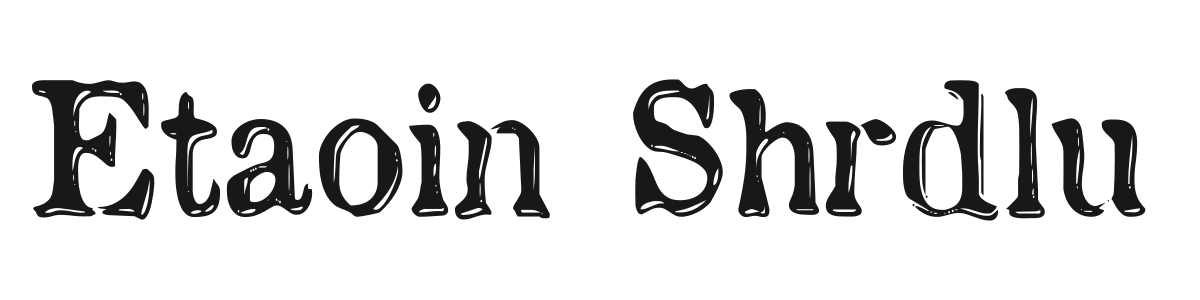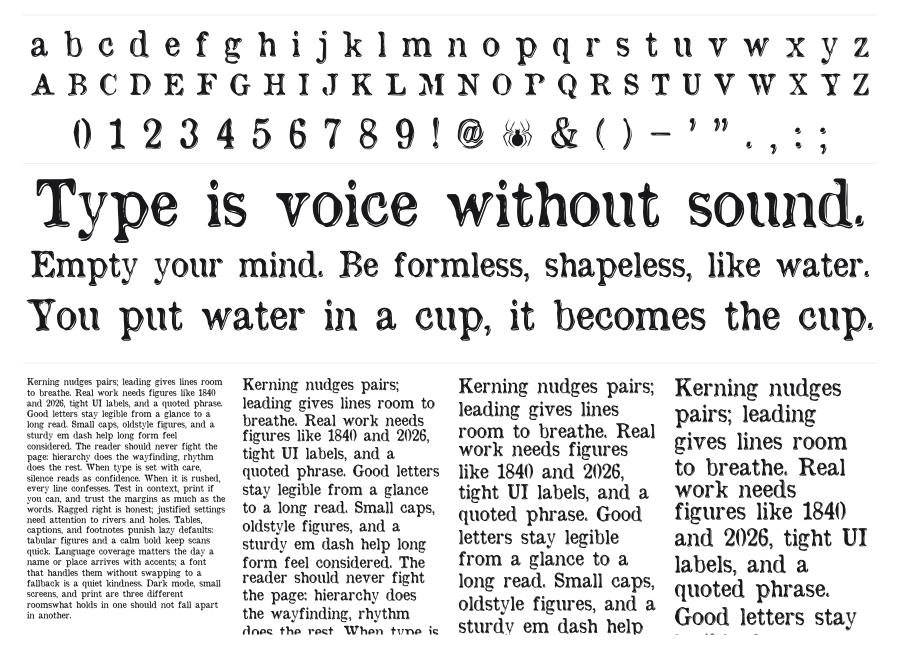
Etaoin Shrdlu
Etaoin Shrdlu is a bold distressed serif named after the infamous Linotype keyboard sequence that represents the twelve most-used letters in English. The characters carry a swollen, inked texture that mimics the pressure and spread of letterpress printing, with subtle inline highlights adding a dimensional, almost three-dimensional quality. It brings genuine typographic heritage to display work, logos, and editorial headlines.